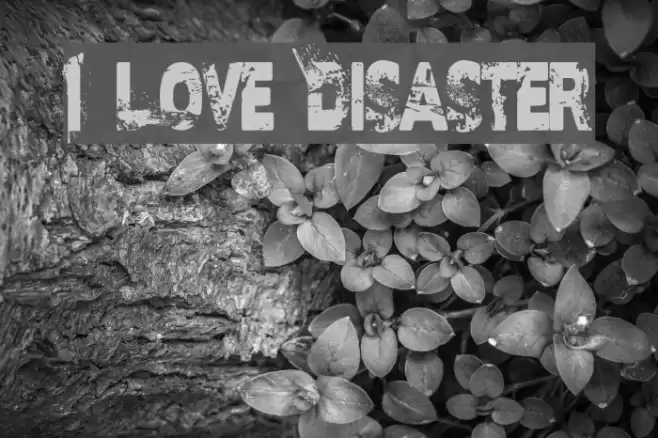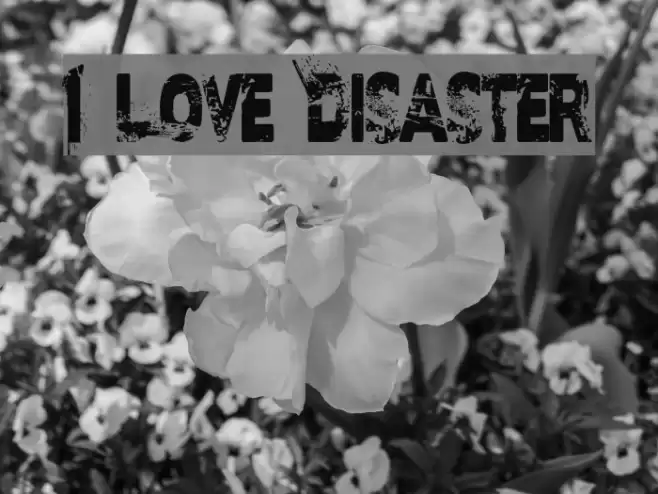
I Love Disaster Font
I Love Disaster Description
This font features a distressed and grungy aesthetic, characterized by its rough, textured appearance that mimics the look of worn or damaged surfaces. The letters are bold and uppercase, with irregular edges and a splattered effect that adds to its chaotic and edgy style. The numbers and special characters follow the same distressed theme, making it a cohesive choice for projects that require a raw and rebellious vibe. The font's unique design makes it stand out, perfect for creating impactful and eye-catching visuals.
A bold, distressed font with a grungy, textured appearance from Fancy fonts.
- Proposed Projects: Ideal for music album covers, urban-themed posters, streetwear branding, or any project needing a gritty, rebellious touch.
- Overall Style: Grunge, Edgy, Distressed
- Use Case: Headlines, Posters, Branding